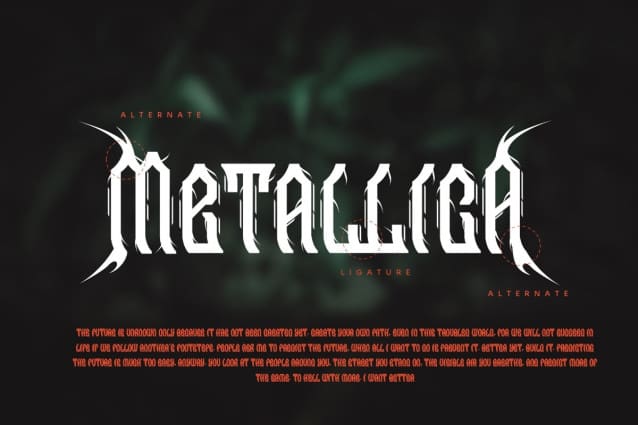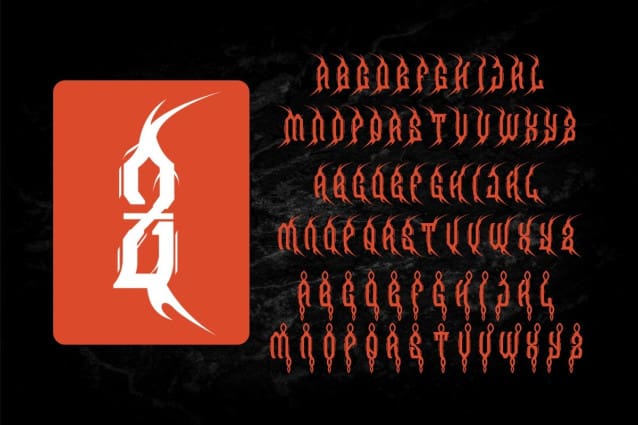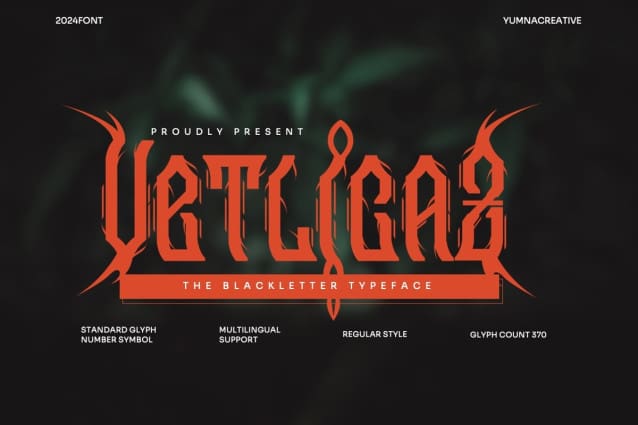
Vetlicaz Blackletter Font
Vetlicaz Blackletter Font is a blackletter display font with additional ornaments inspired by gothic and horror metal styles because its shape is unique and very suitable for any project you will use with this theme.